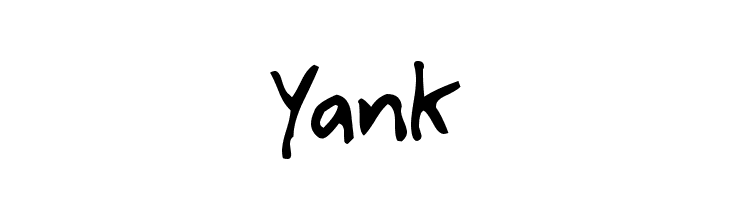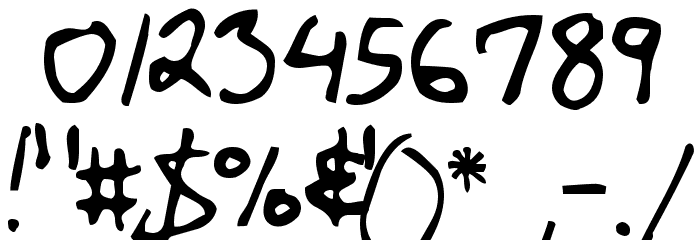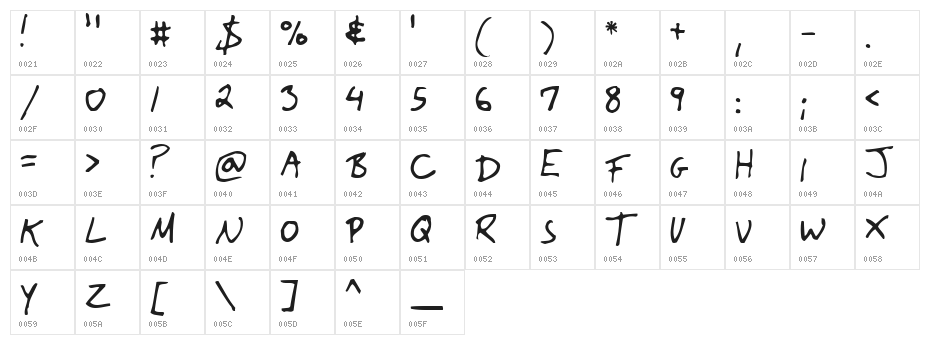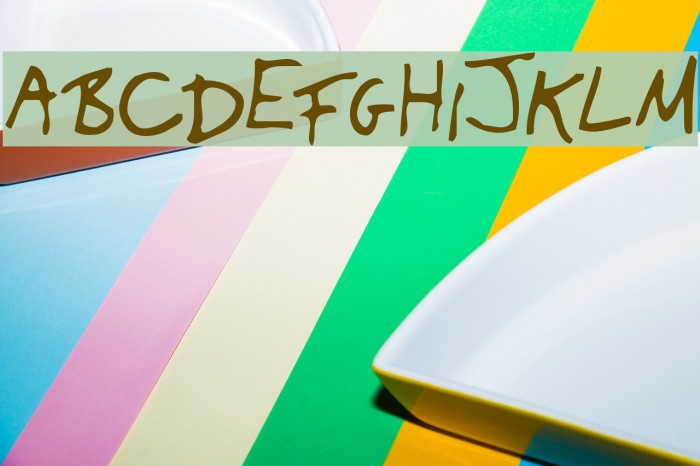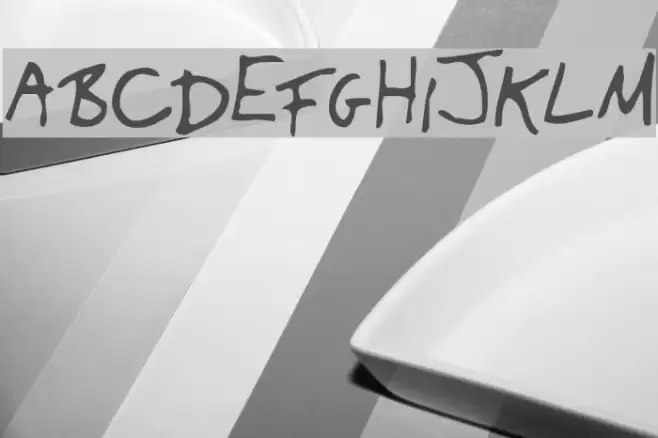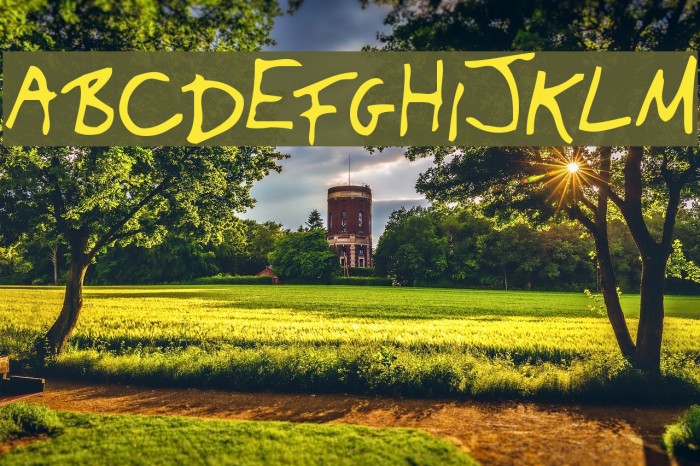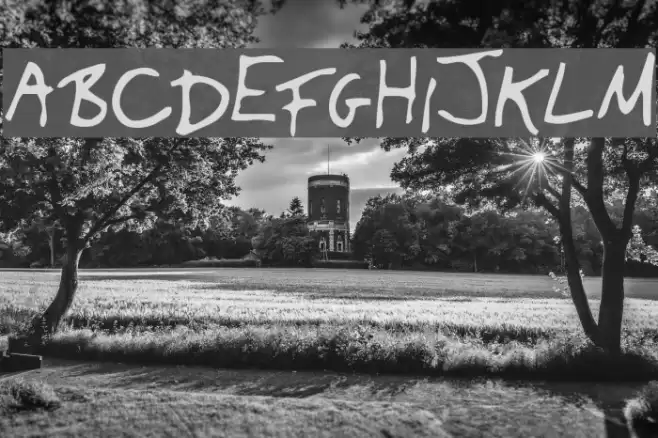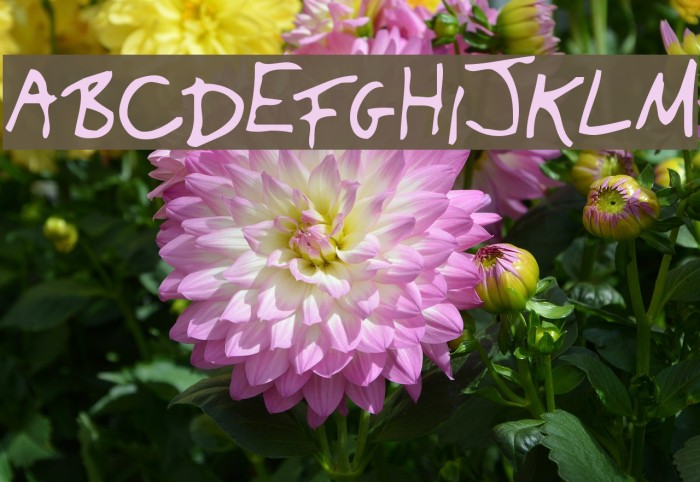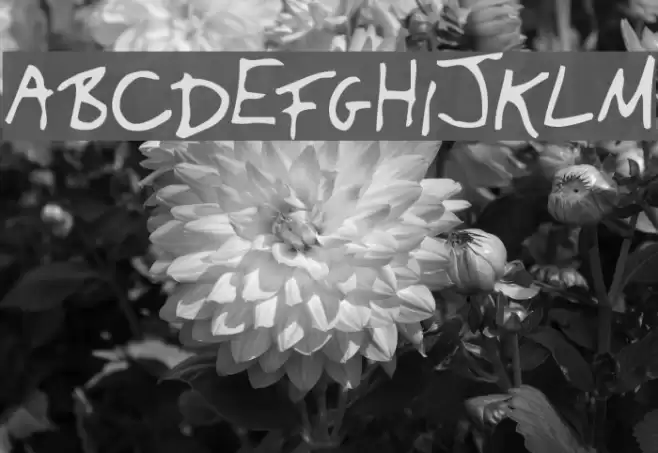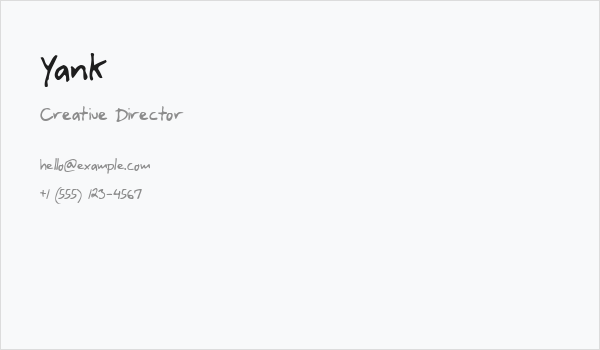
Yank Font
Yank Description
This font features a playful and energetic handwritten style, characterized by its irregular strokes and dynamic flow. The letters are bold and slightly uneven, giving them a casual and informal appearance. The uppercase and lowercase letters maintain a consistent style, with rounded edges and varying stroke thicknesses that add to the font's lively character. The numbers and special characters are equally expressive, maintaining the same whimsical quality. This font is perfect for projects that require a personal touch or a sense of spontaneity.
| Proposed Projects | Ideal for greeting cards, children's books, casual branding, and social media graphics. |